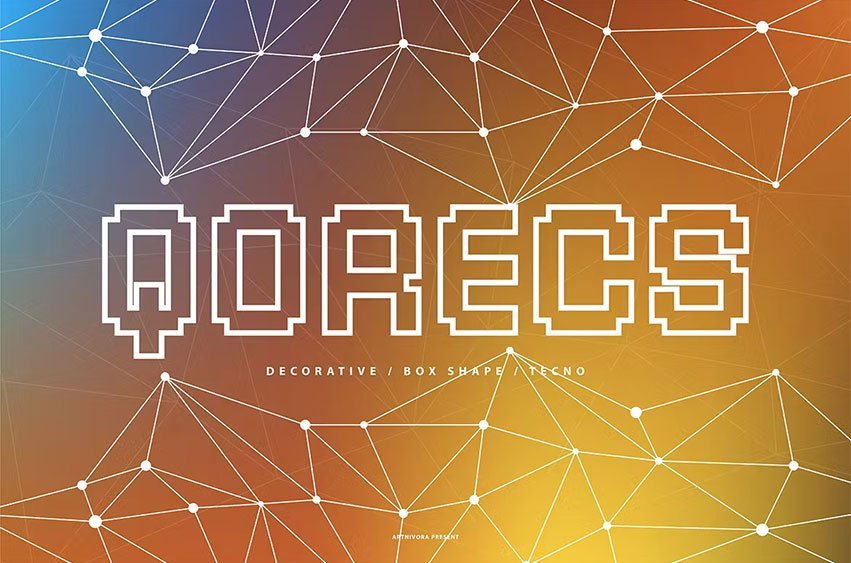
Qorecs Font
Qorecs Font is a simple and decorative font. So perfect for you who needs a typeface for logo designs, magazine, social media, brochure, and many more.